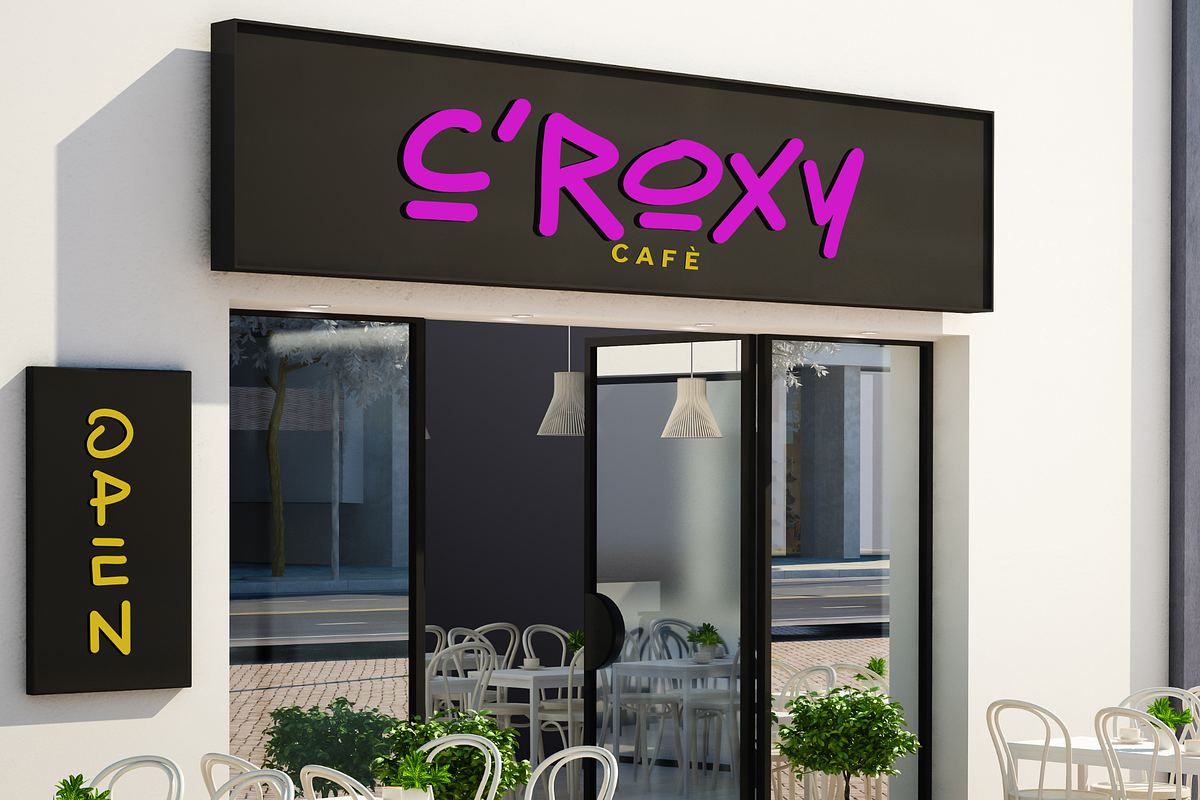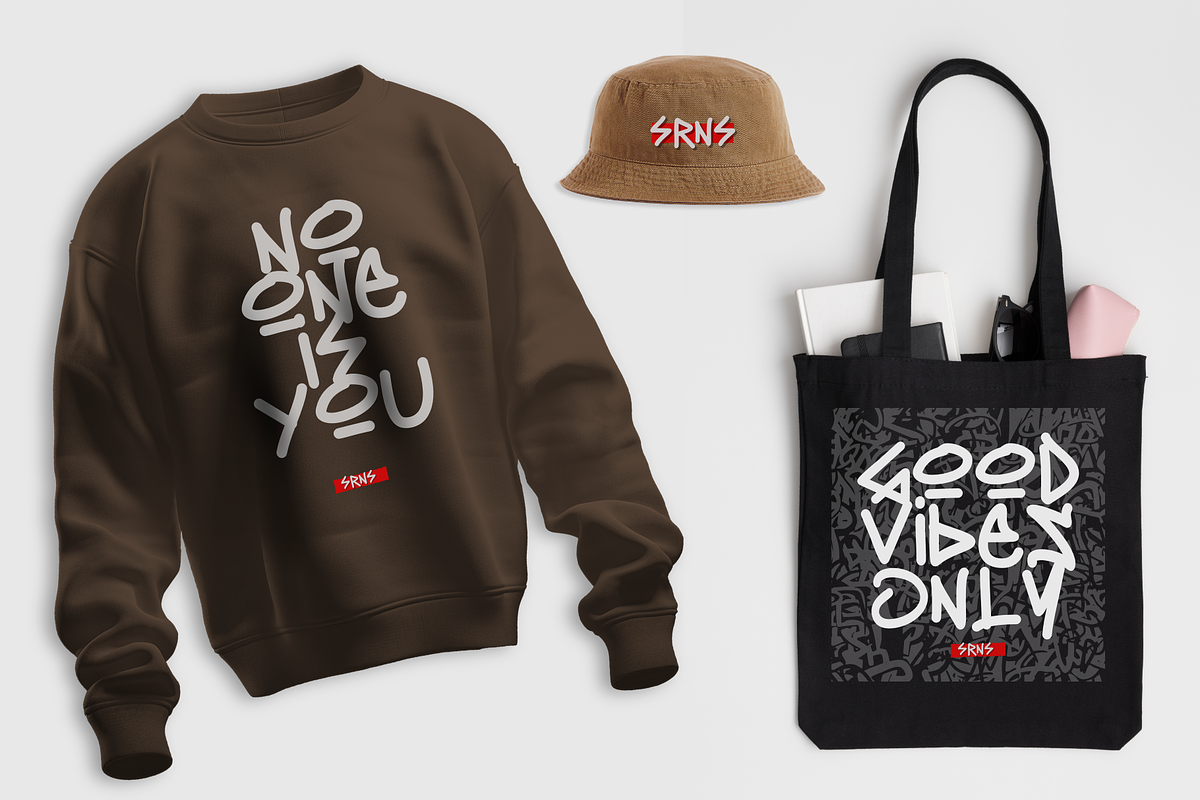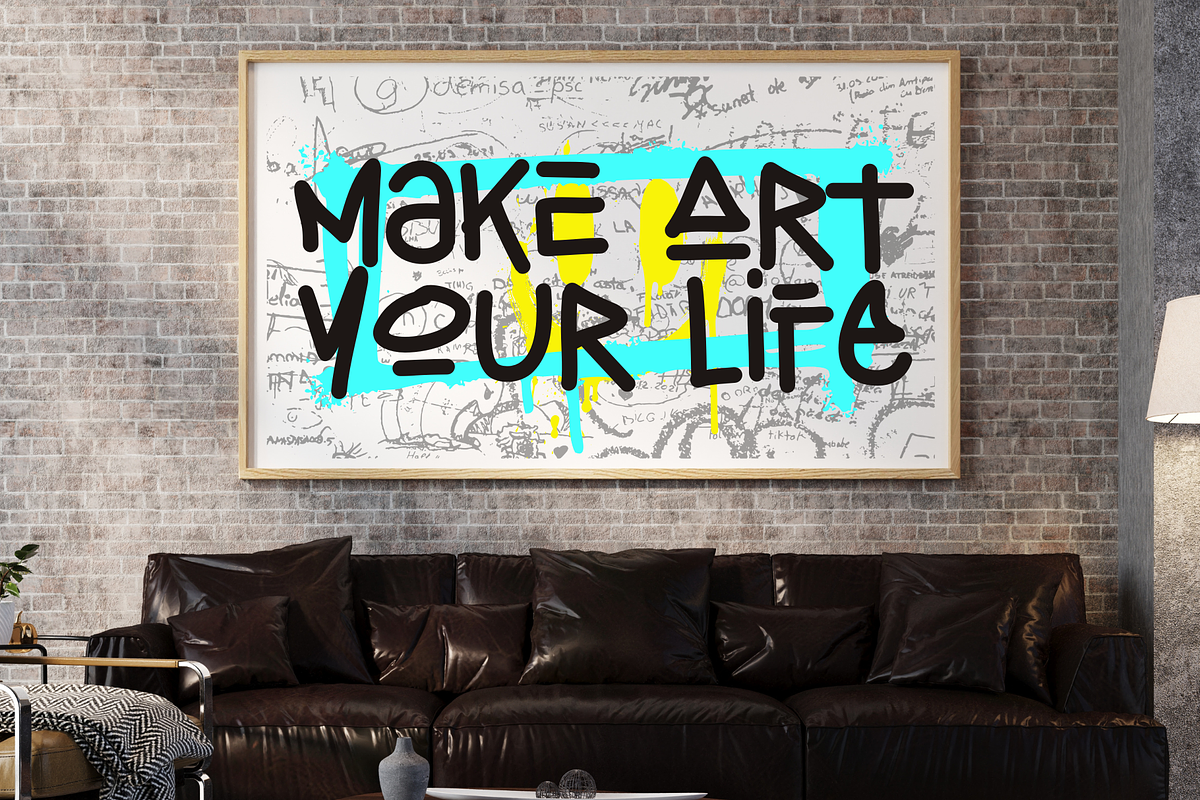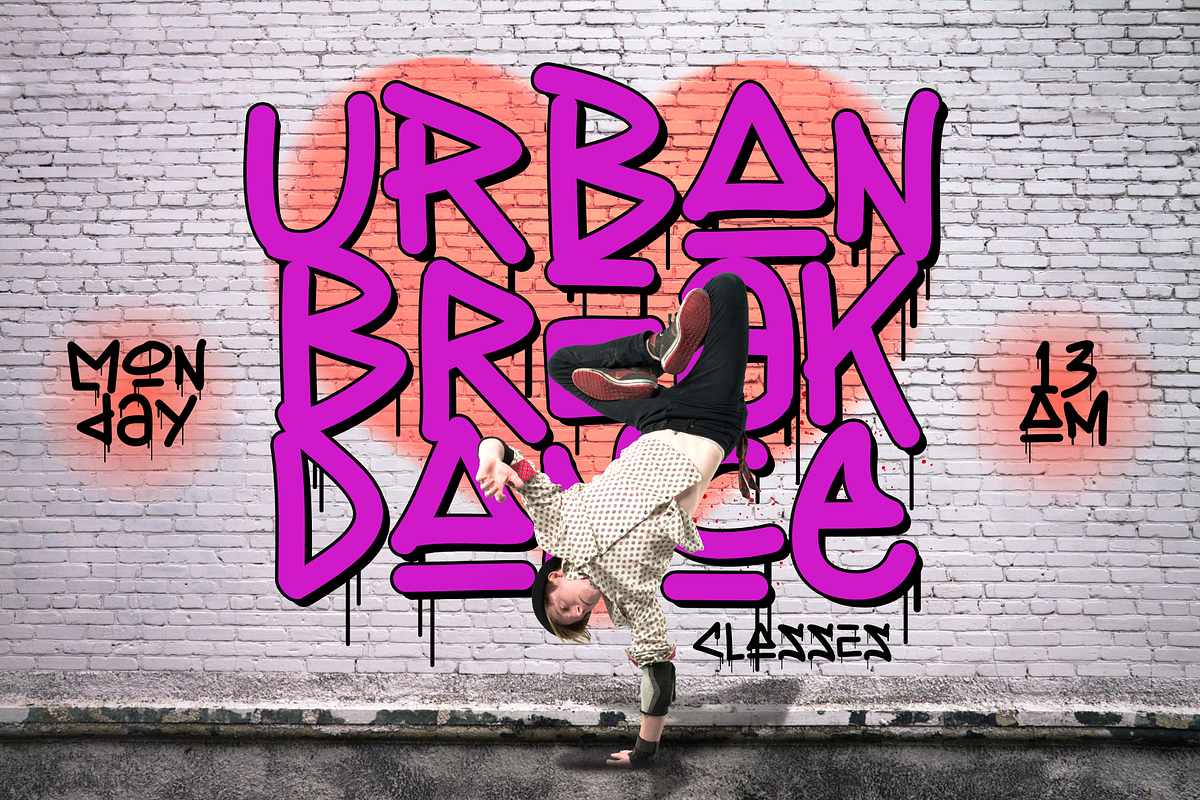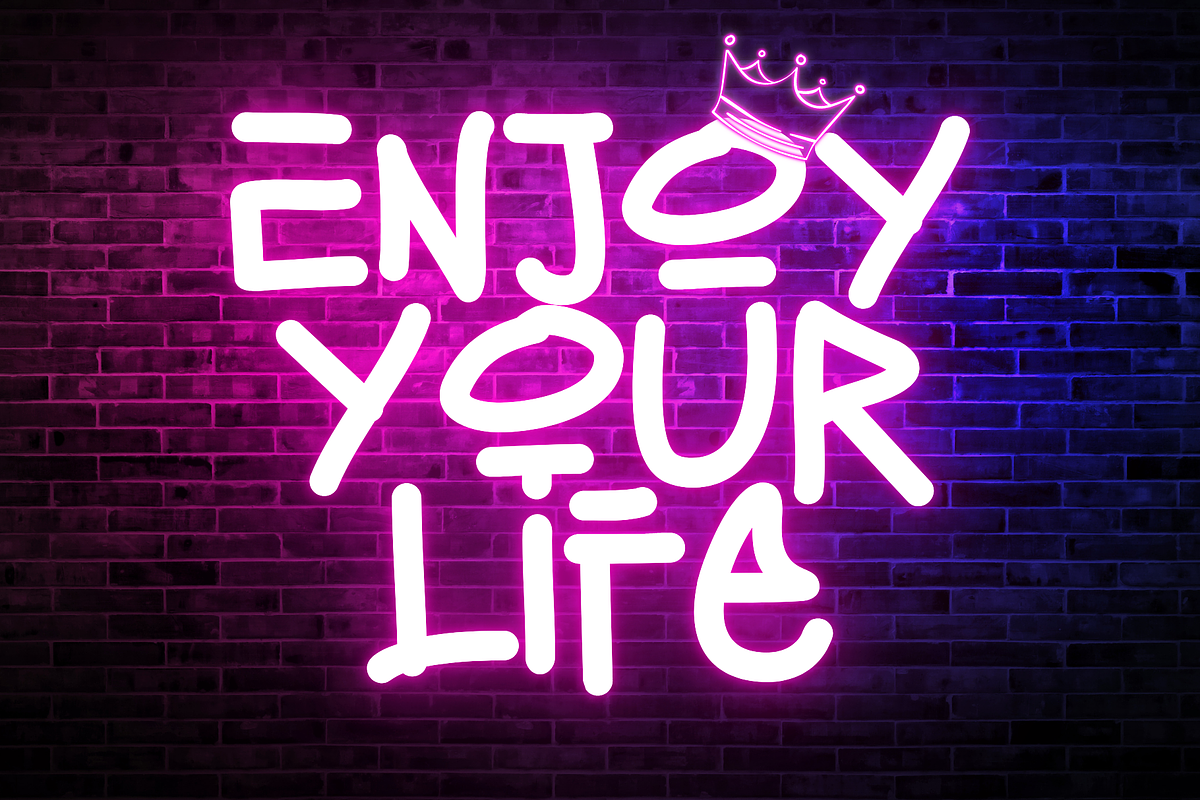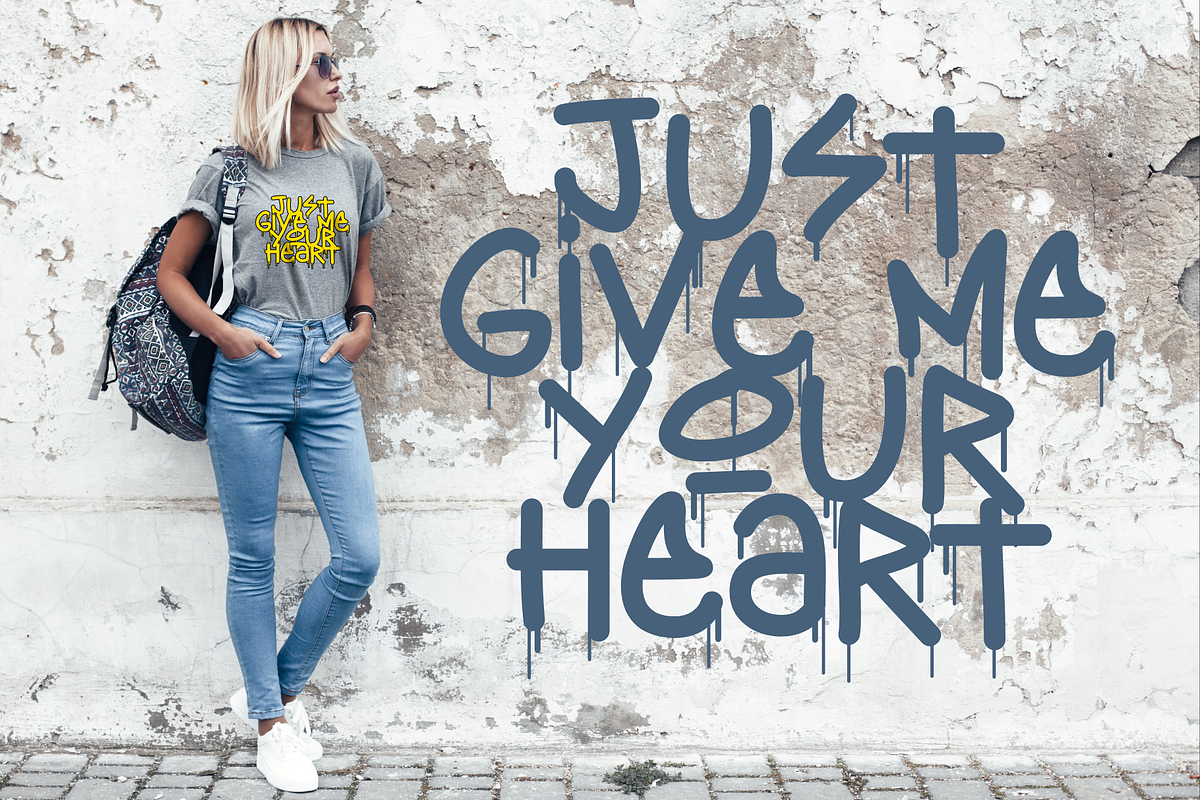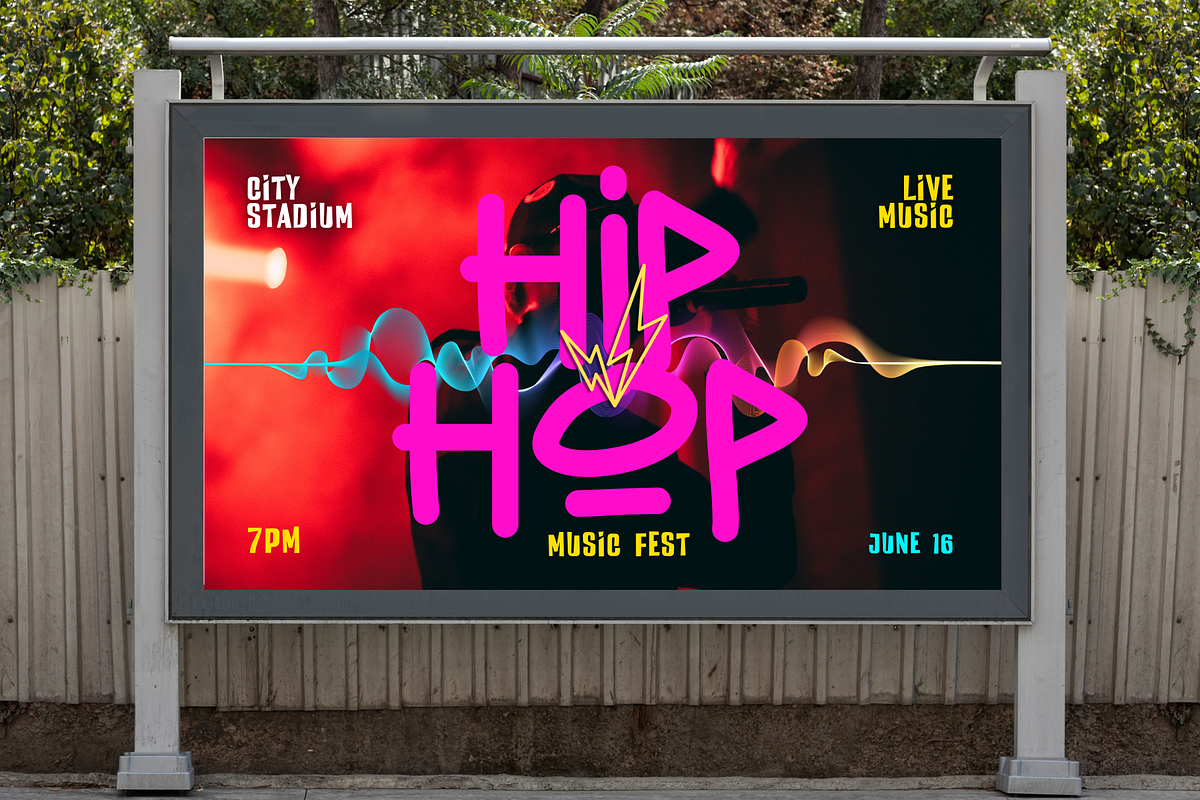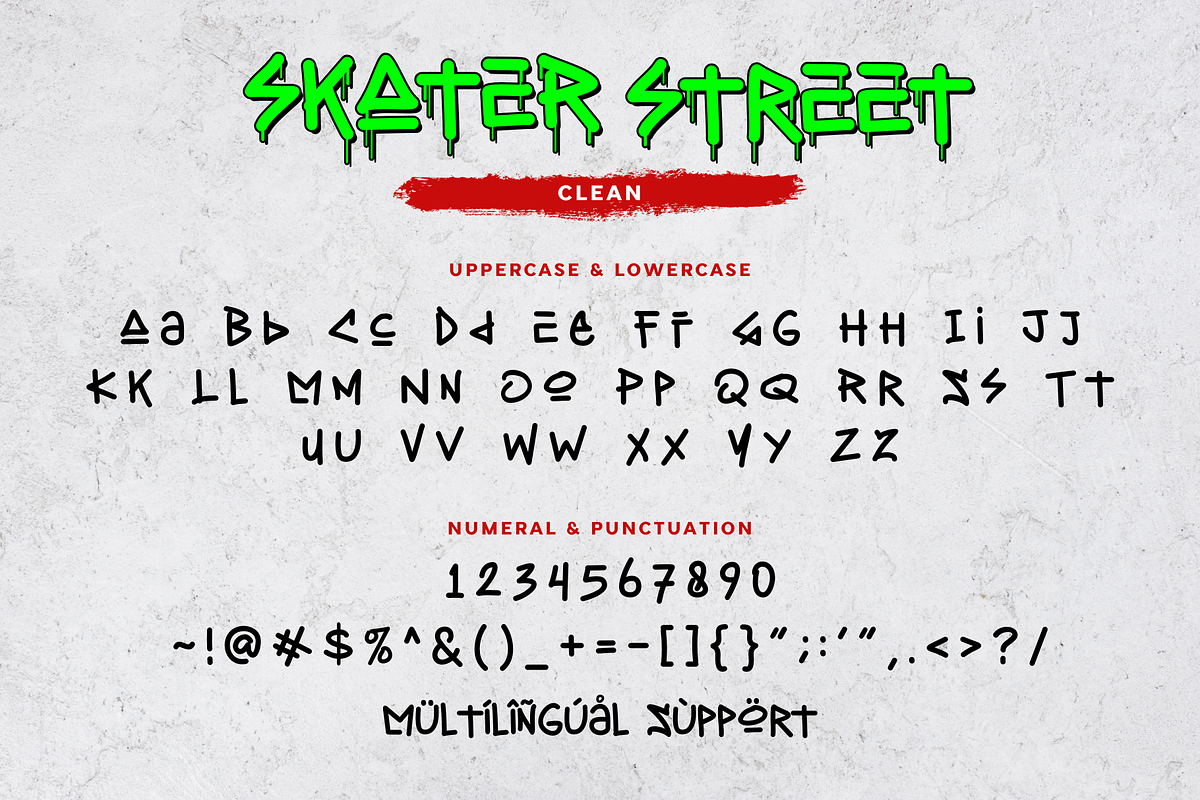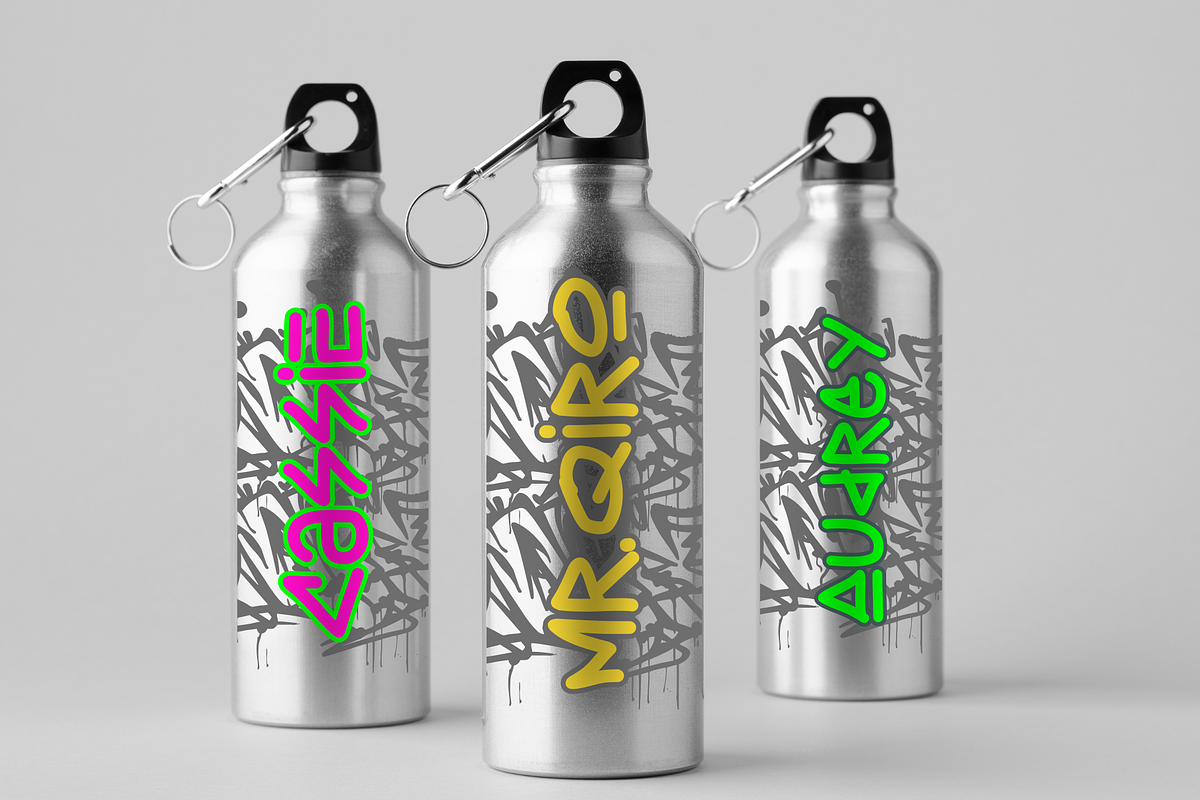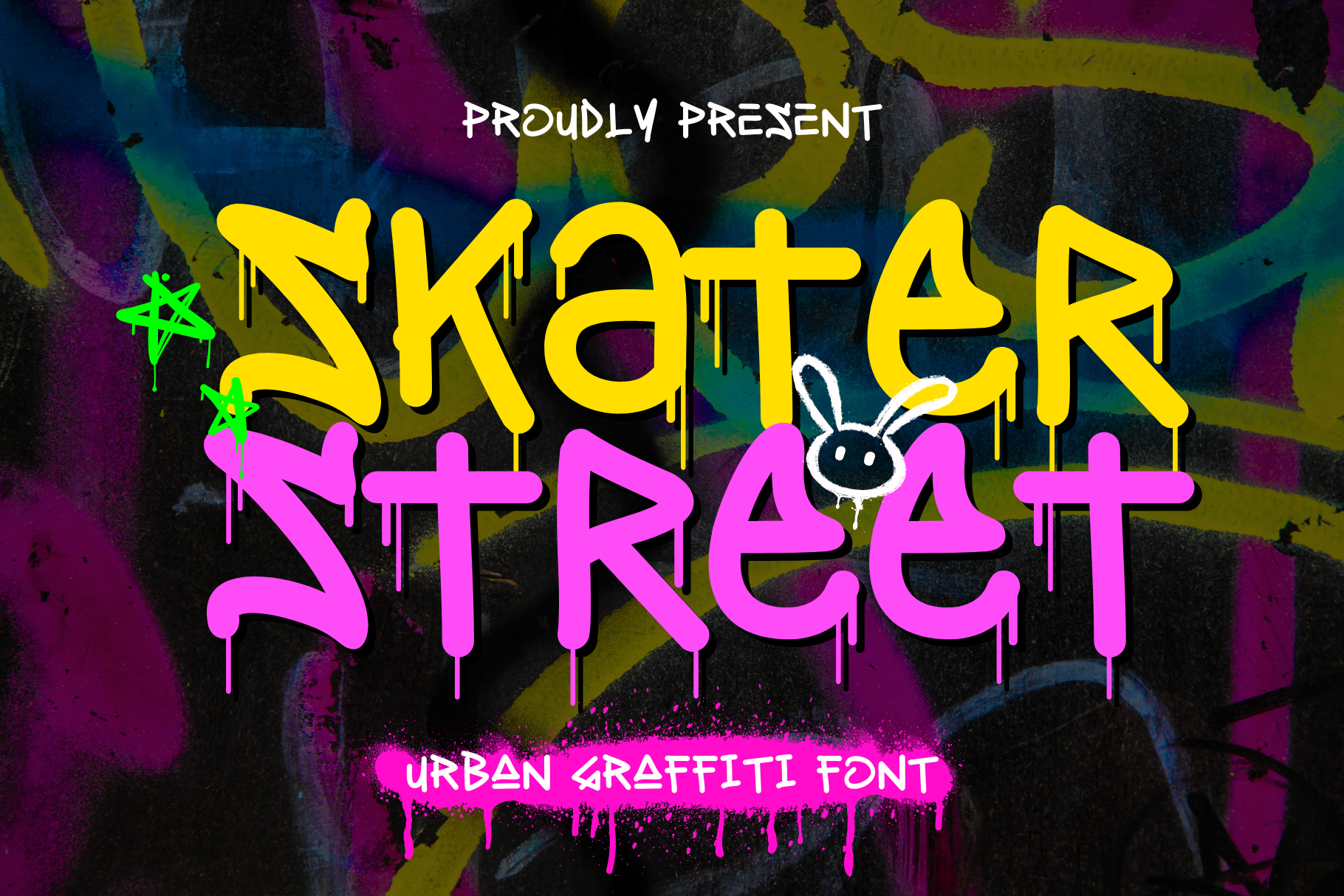
Skater Street - Graffity Font
Skater Street is an urban graffiti font with a raw, street-inspired style, perfect for capturing the essence of skate culture. Its bold and edgy design adds an energetic, rebellious vibe to posters, apparel, and any urban-themed project. Skater Street brings the spirit of the streets to your designs.
- Regular & Clean Style